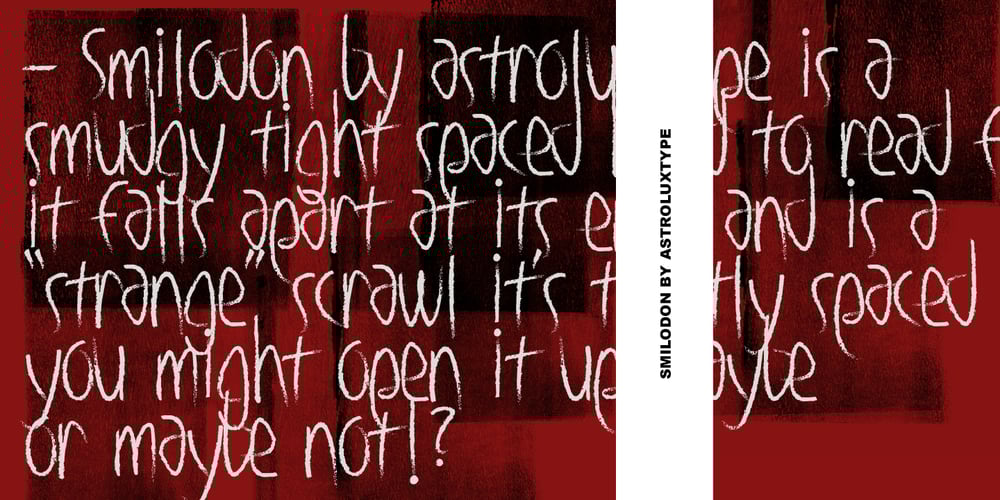
Smilodon Font Family was designed by Glenn Parsons and published by astroluxtype. Smilodon contains 1 styles and family package options. Smilodon an ancient distressed font made with raptor claws, cat’s teeth, stone and sky? It’s a corroded, distressed, punk scrawl with lots of attitude. This is a basic minimal glyph set with uppercase and lowercase forms. This is a headline display font suggested use would be 60 point or larger. Note: The metric and kerning on this font is extremely tight spacing and user should letterspace to desired width within application type controls. This monster cat is pre-historic indeed.